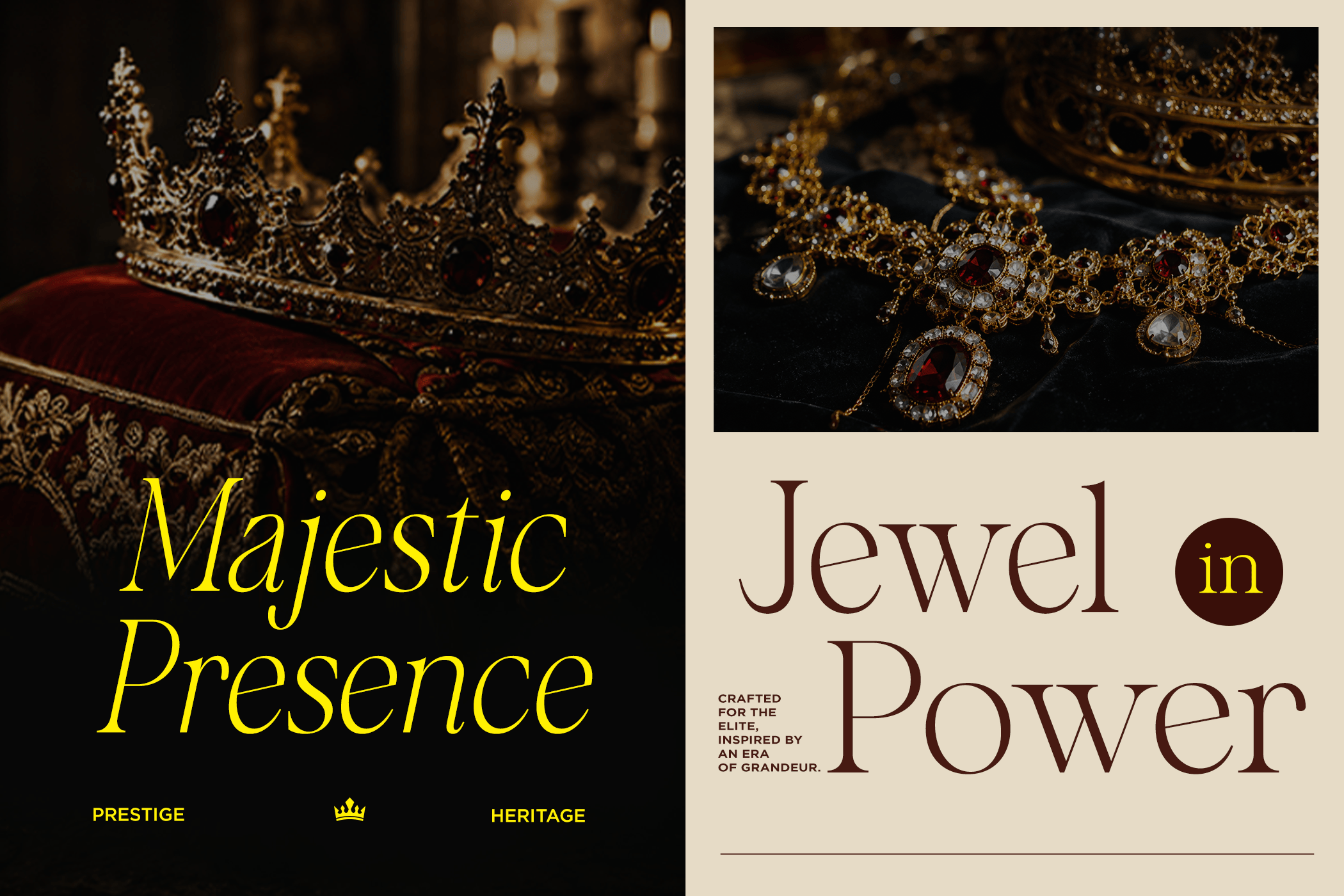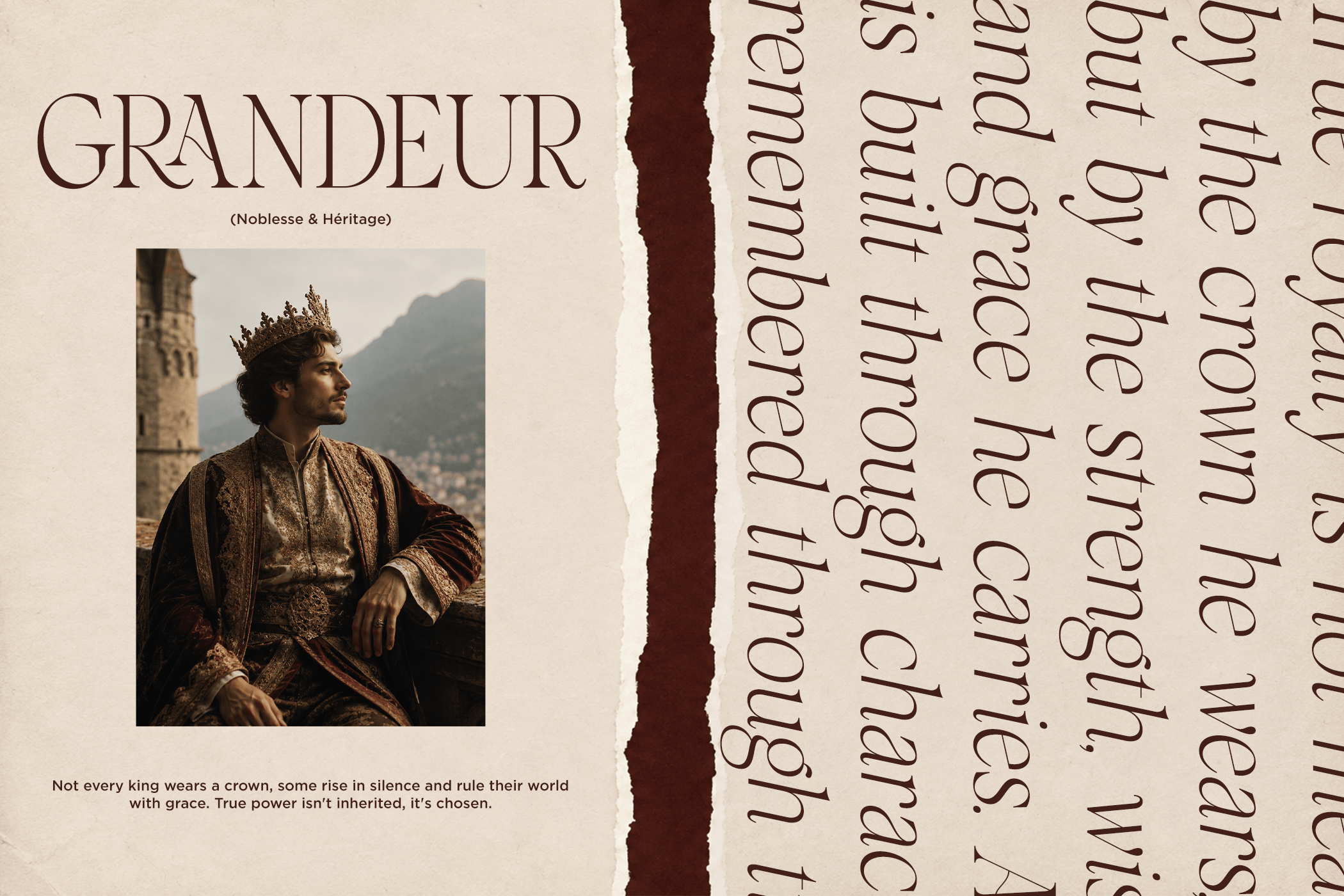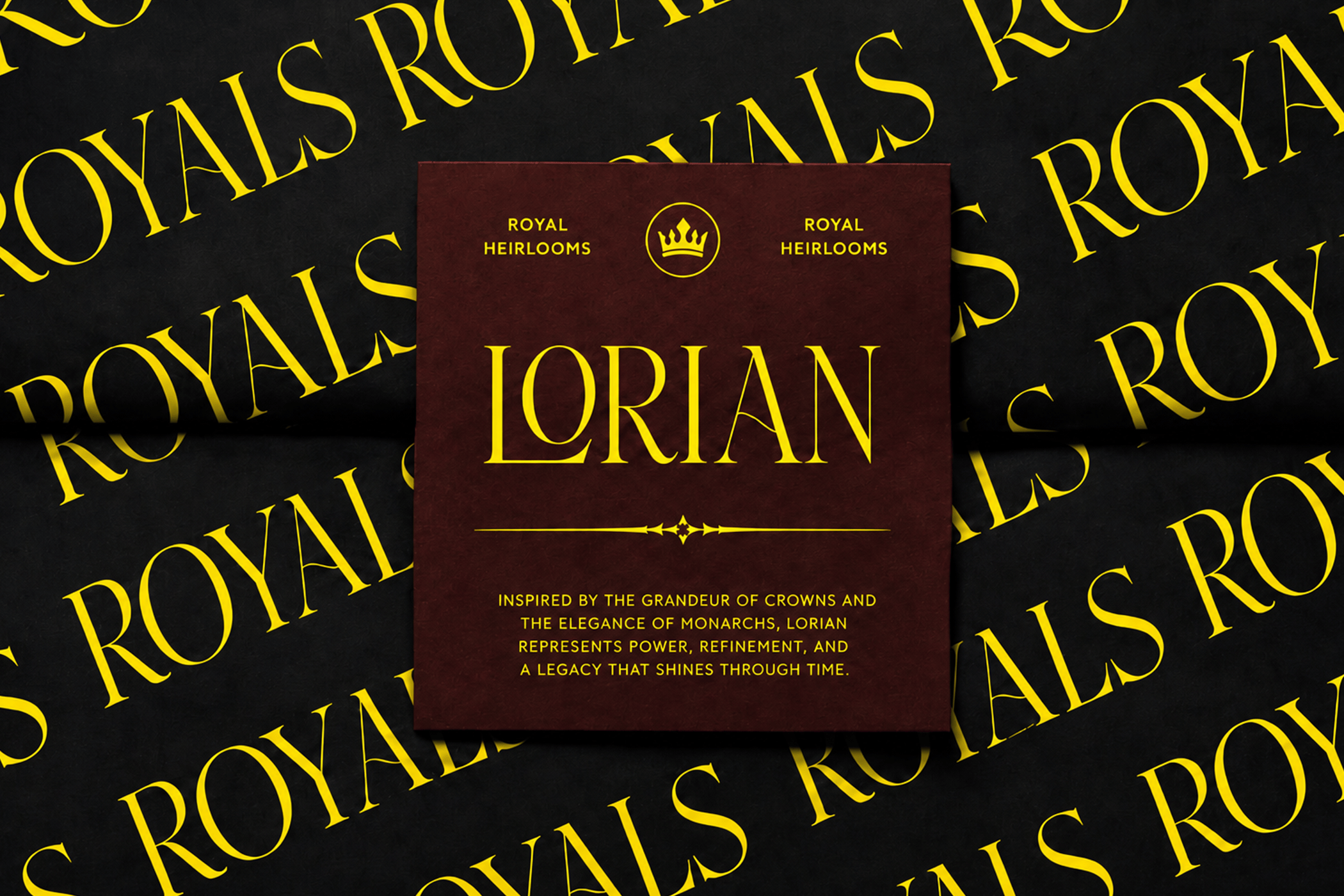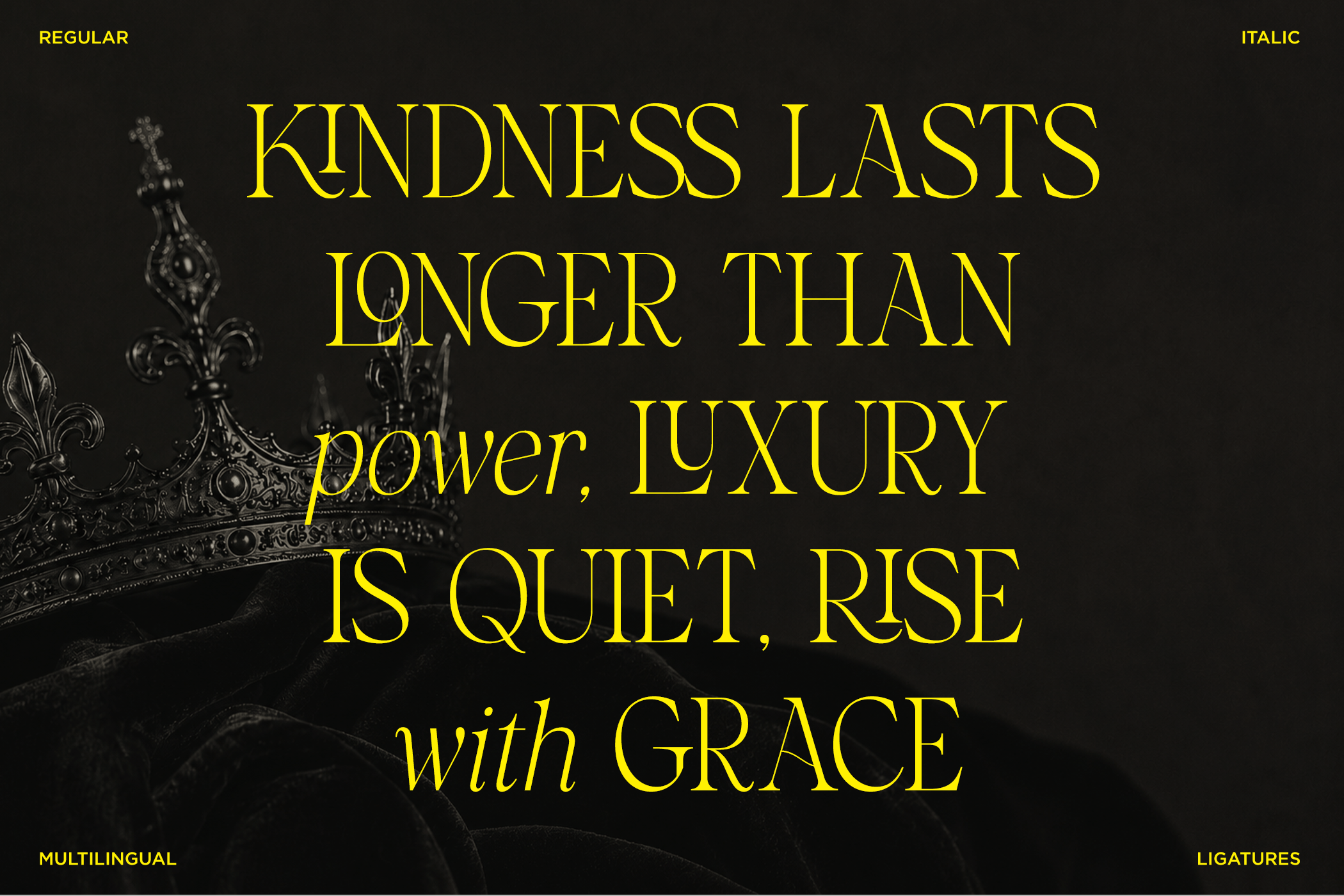
Crown Monarch – Stylish Elegant Serif Font
Crown Monarch is a sophisticated luxury serif font designed to bring an elegant, regal, and timeless character to your creative projects. Featuring Regular and True Italic styles, it offers greater flexibility for creating refined typography with a distinctive editorial and high-end appearance.
Perfect for fashion magazines, luxury branding, beauty campaigns, perfume packaging, wedding stationery, editorial layouts, logos, invitations, and premium product designs. The Regular style provides a clean and sophisticated presence, while the True Italic adds graceful movement and an elegant expressive touch.
Create a strong visual identity with a classic yet contemporary serif style that feels exclusive, prestigious, elegant, and effortlessly luxurious. With its versatile styles and refined letterforms, Crown Monarch is an excellent choice for sophisticated headlines, brand identities, display typography, and premium creative projects.
- Regular and True Italic
- Stylistic Ligatures
- Number, Symbol, and Punctuation